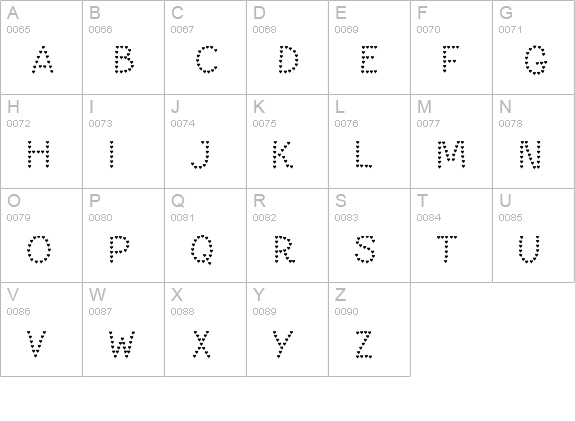
Paltime Heart is a charming and elegant handwritten font that exudes warmth and friendliness. Its playful yet sophisticated design makes it perfect for a variety of projects, from invitations and greeting cards to branding and social media graphics. The flowing lines and unique heart-shaped details give this font a whimsical touch that is sure to captivate your audience. What's even better is that Paltime Heart is available for free download at FontsMarket.com. This means you can easily access this beautiful font and use it in your designs without any cost. Add a touch of love and creativity to your projects with Paltime Heart and watch as it brings your ideas to life with its unique charm and style. Download Paltime Heart today and let your creativity soar!